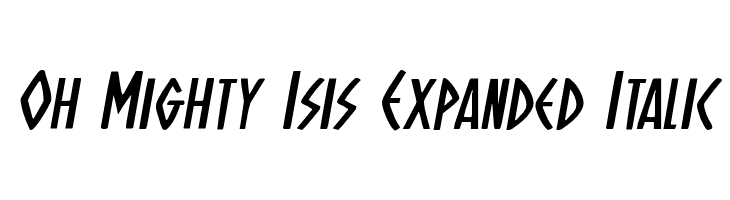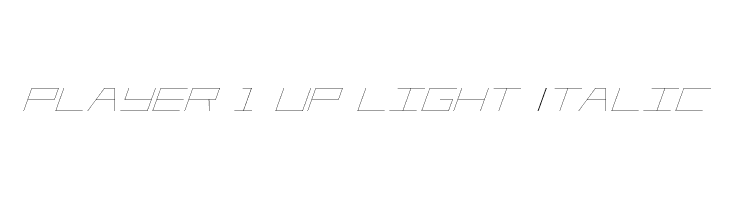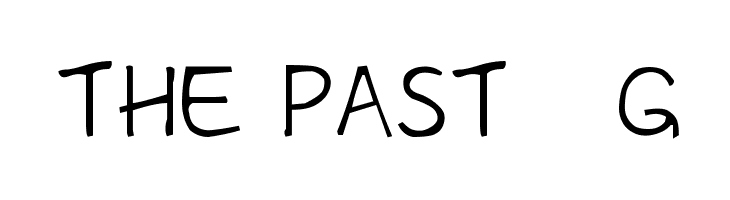
A futuristic, geometric font with thin lines and an italic style.
A playful, handwritten font with a casual and dynamic style.
A bold, expanded italic font with sharp angles and high contrast.
A modern, medium-weight sans-serif font with an italic style.
A bold, 3D geometric font with a striking shadow effect.
A bold, distressed font with a rugged, textured appearance.
A bold, italicized font with a futuristic and angular design.
A bold, three-dimensional font with a strong, shadowed outline and geometric style.